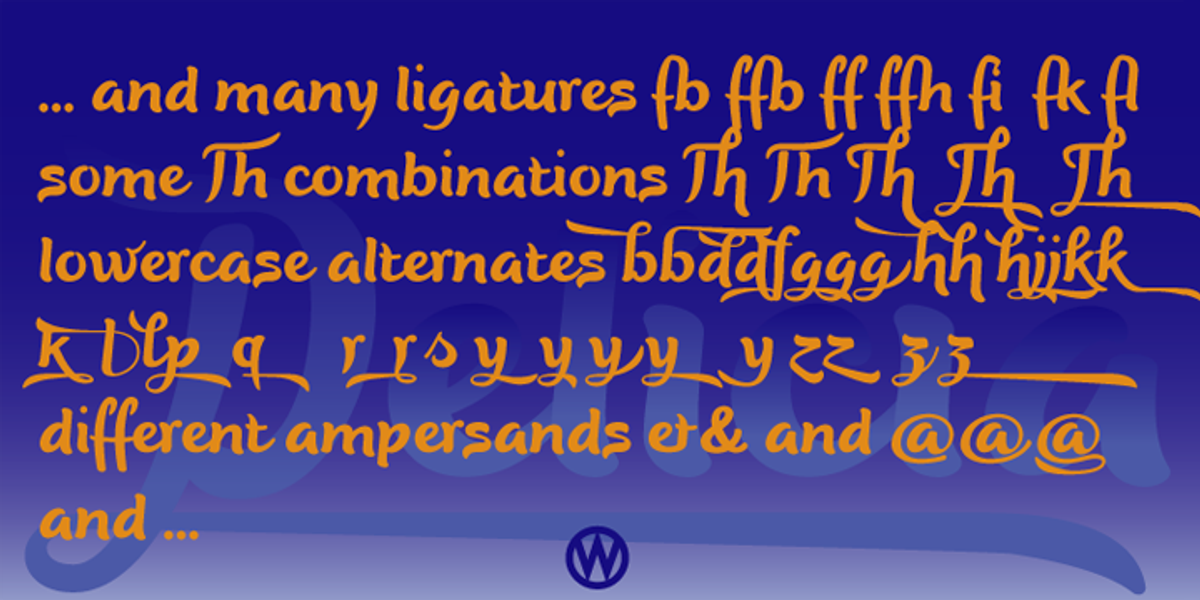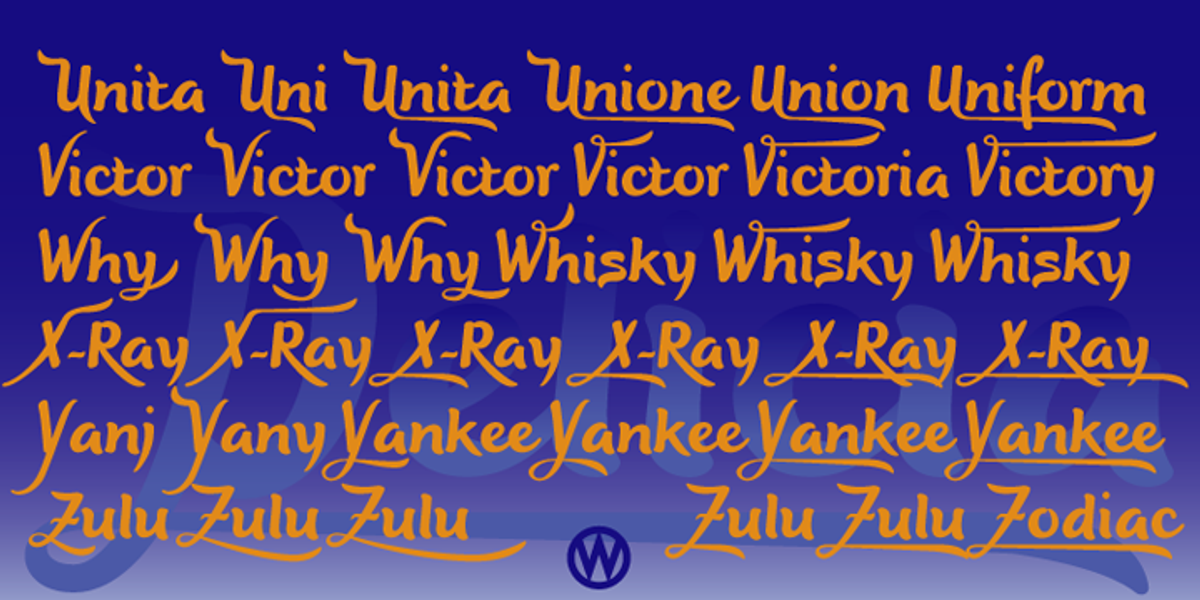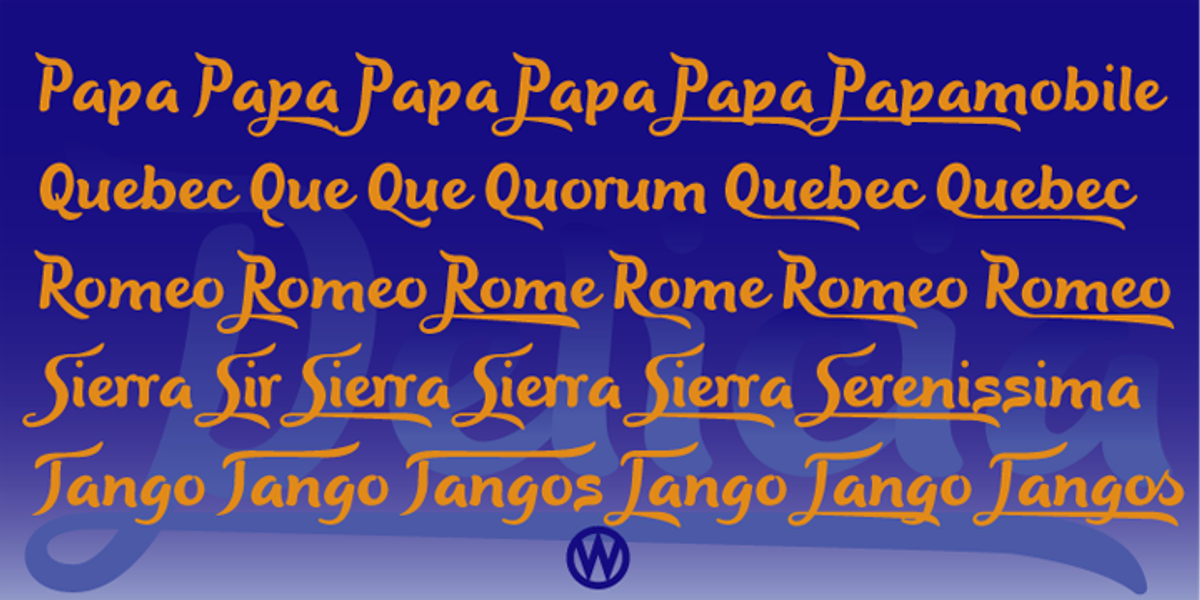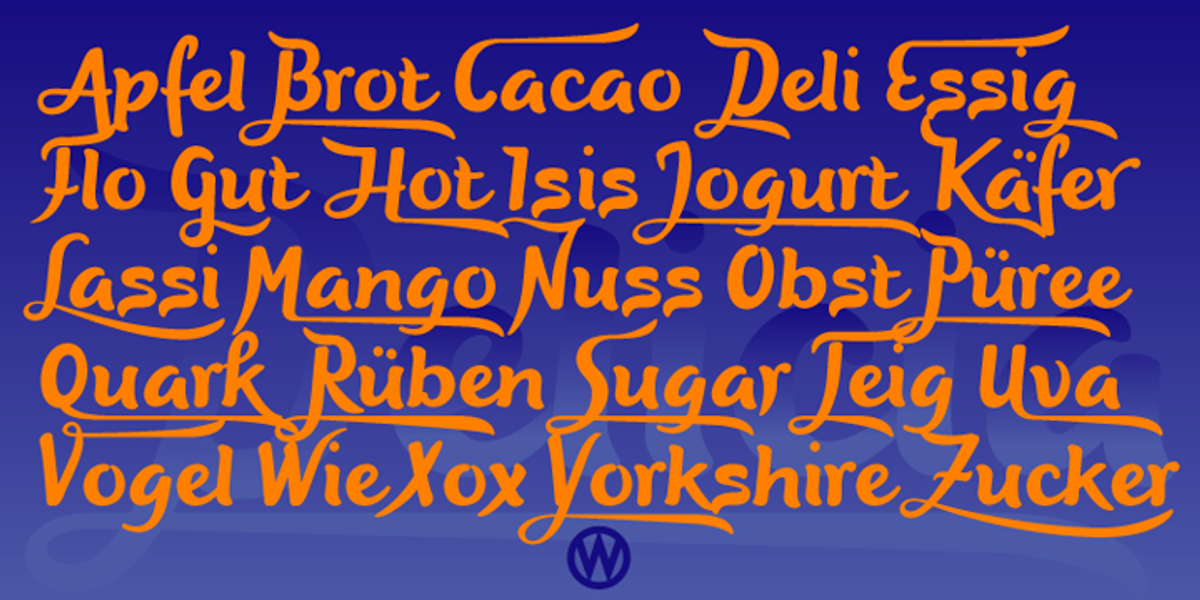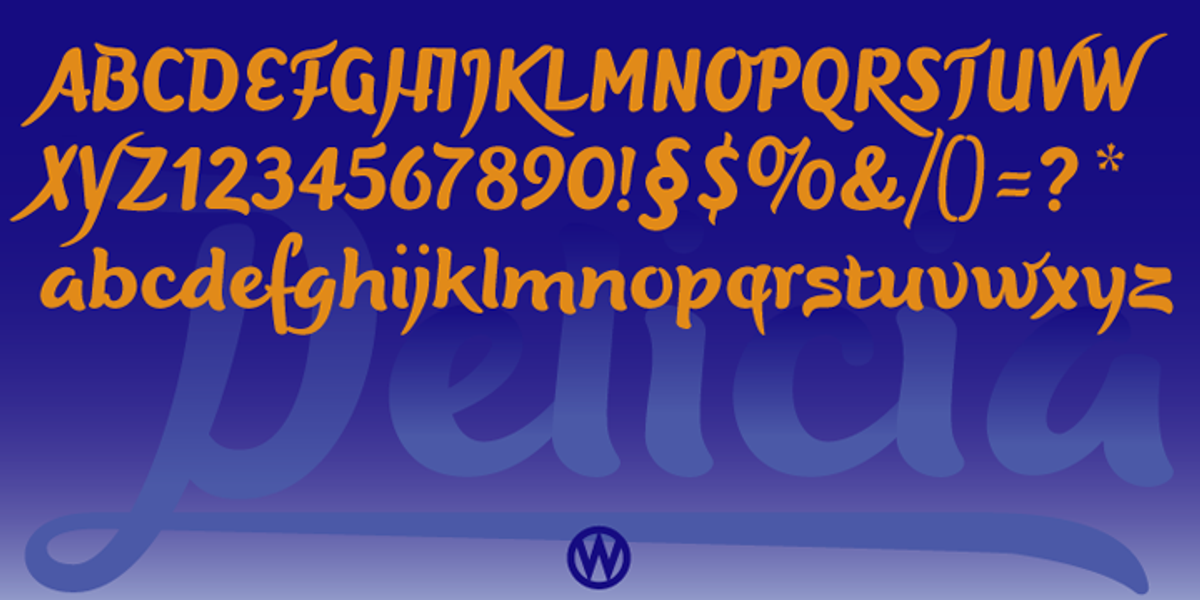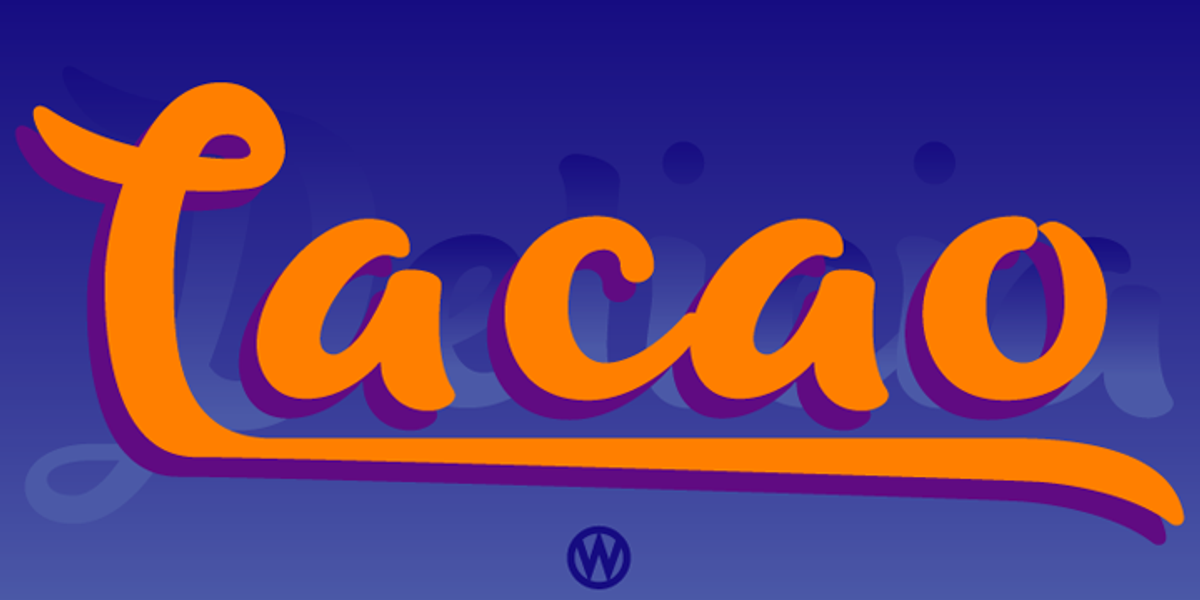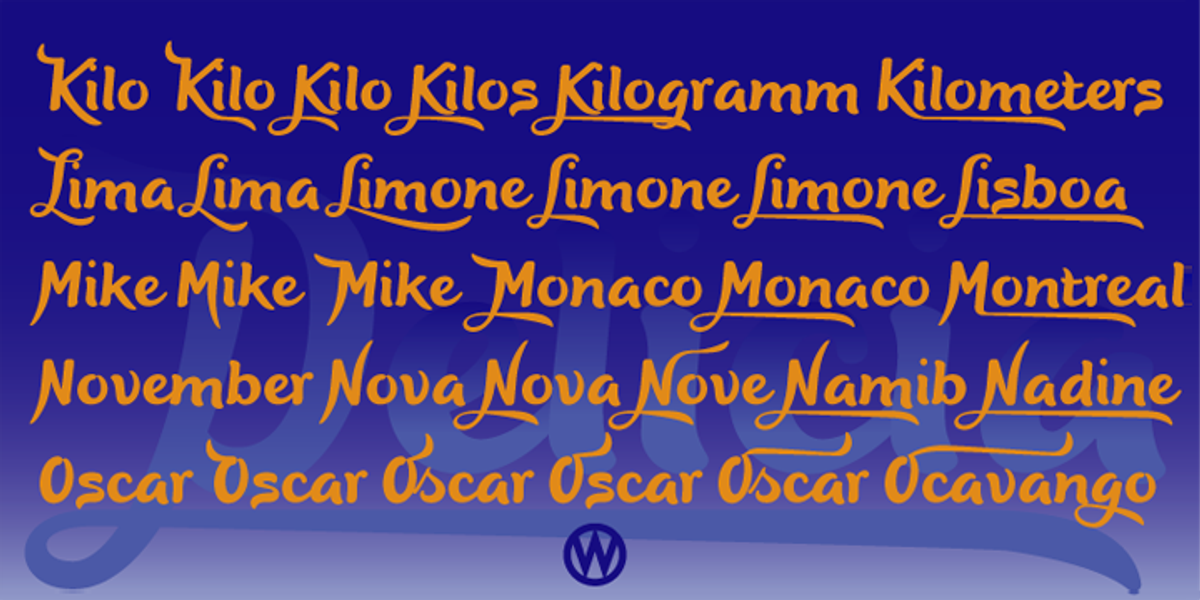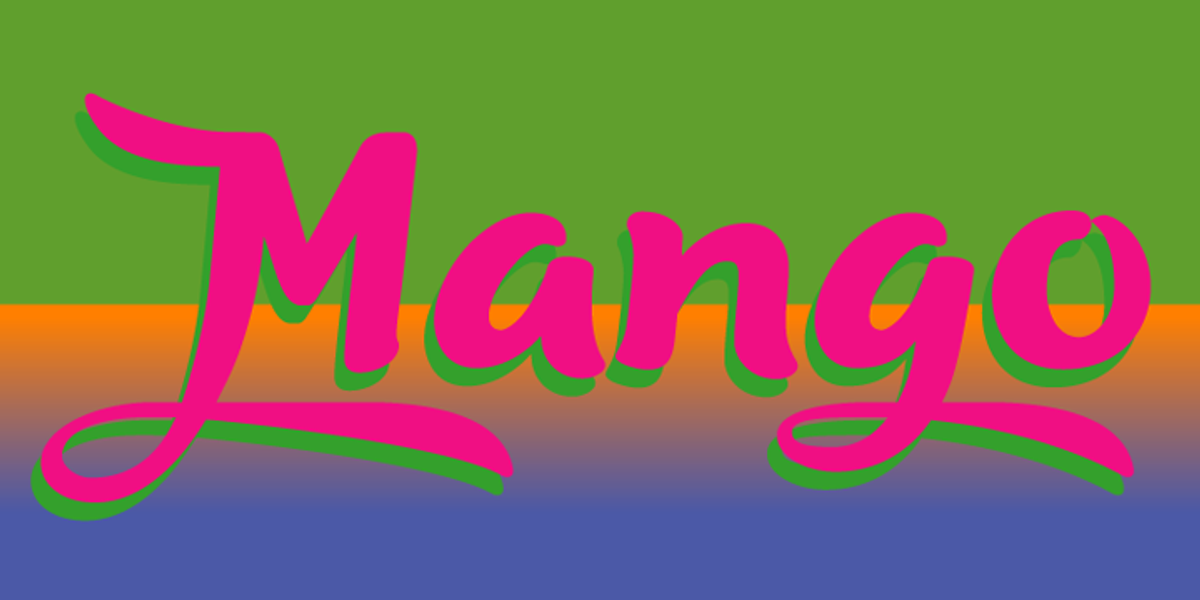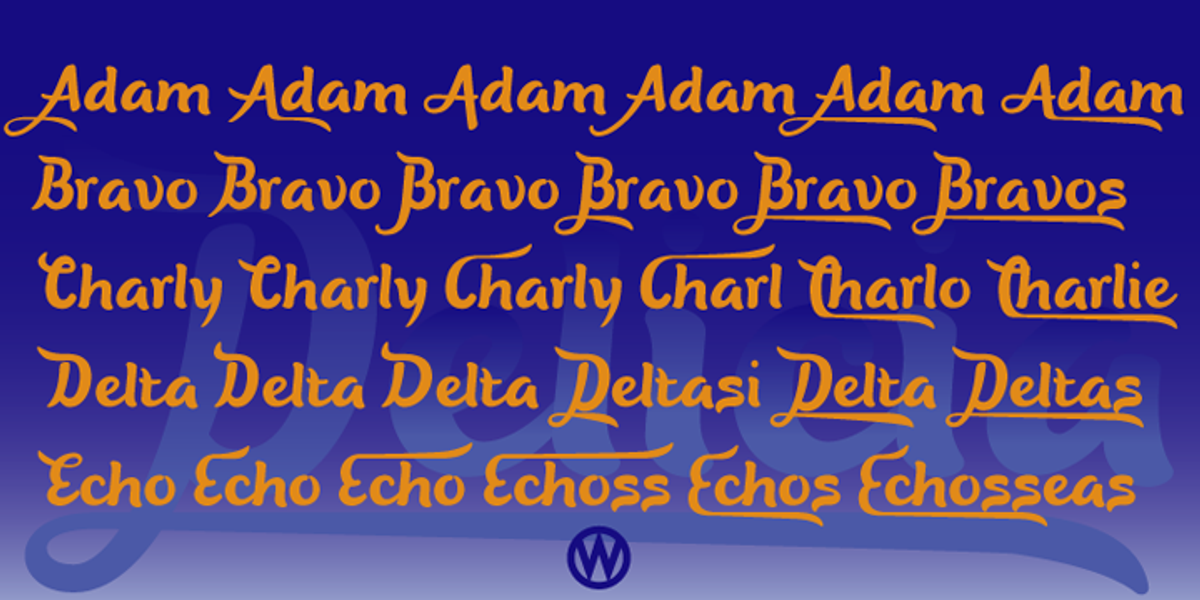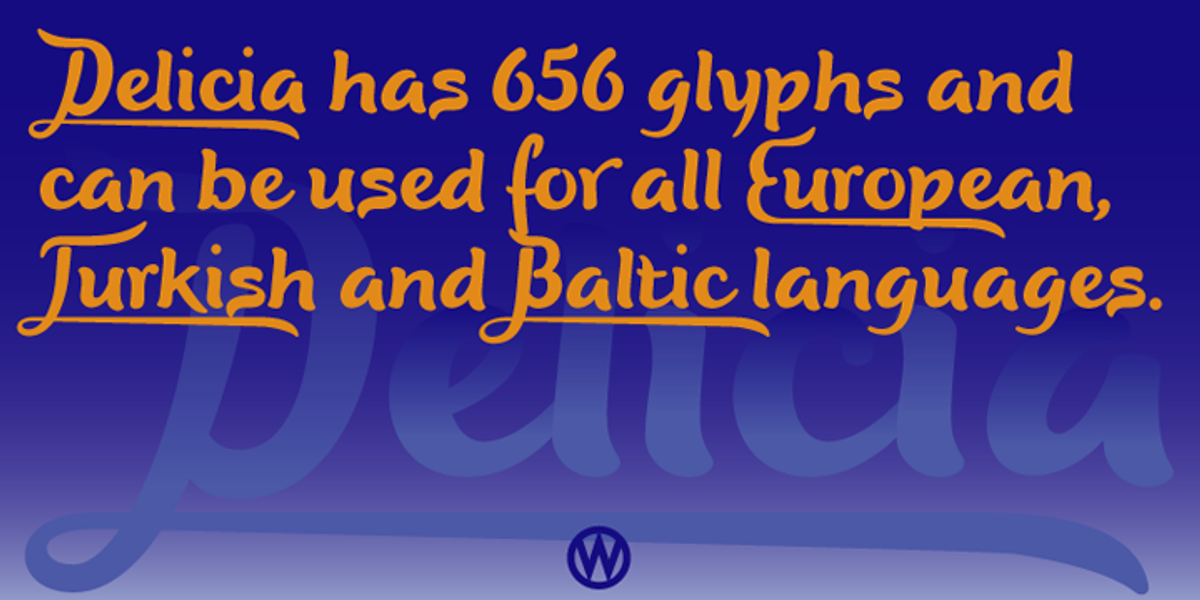
Delicia Pro
Delicia Pro is a fat face script font designed for versatility. It features numerous variations for uppercase letters and other characters accessible through OpenType-capable software. The font supports languages across Europe, Turkey, and the Baltic region.